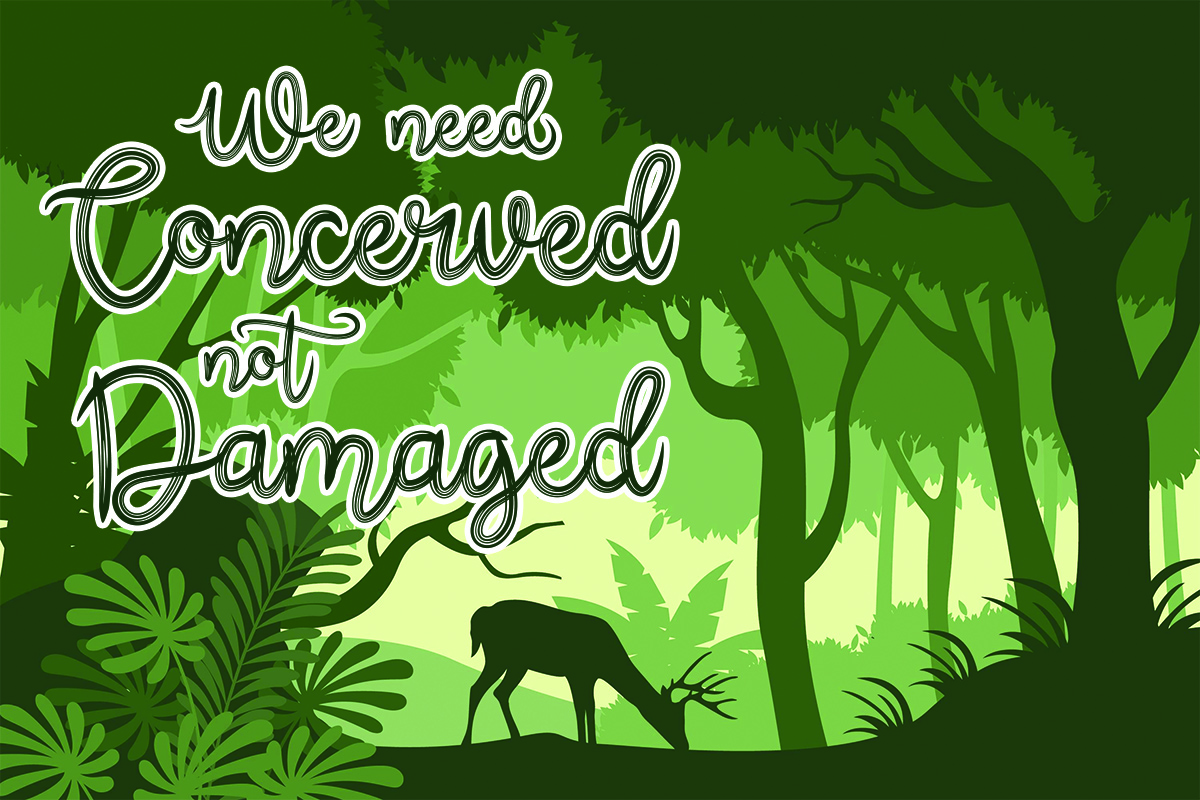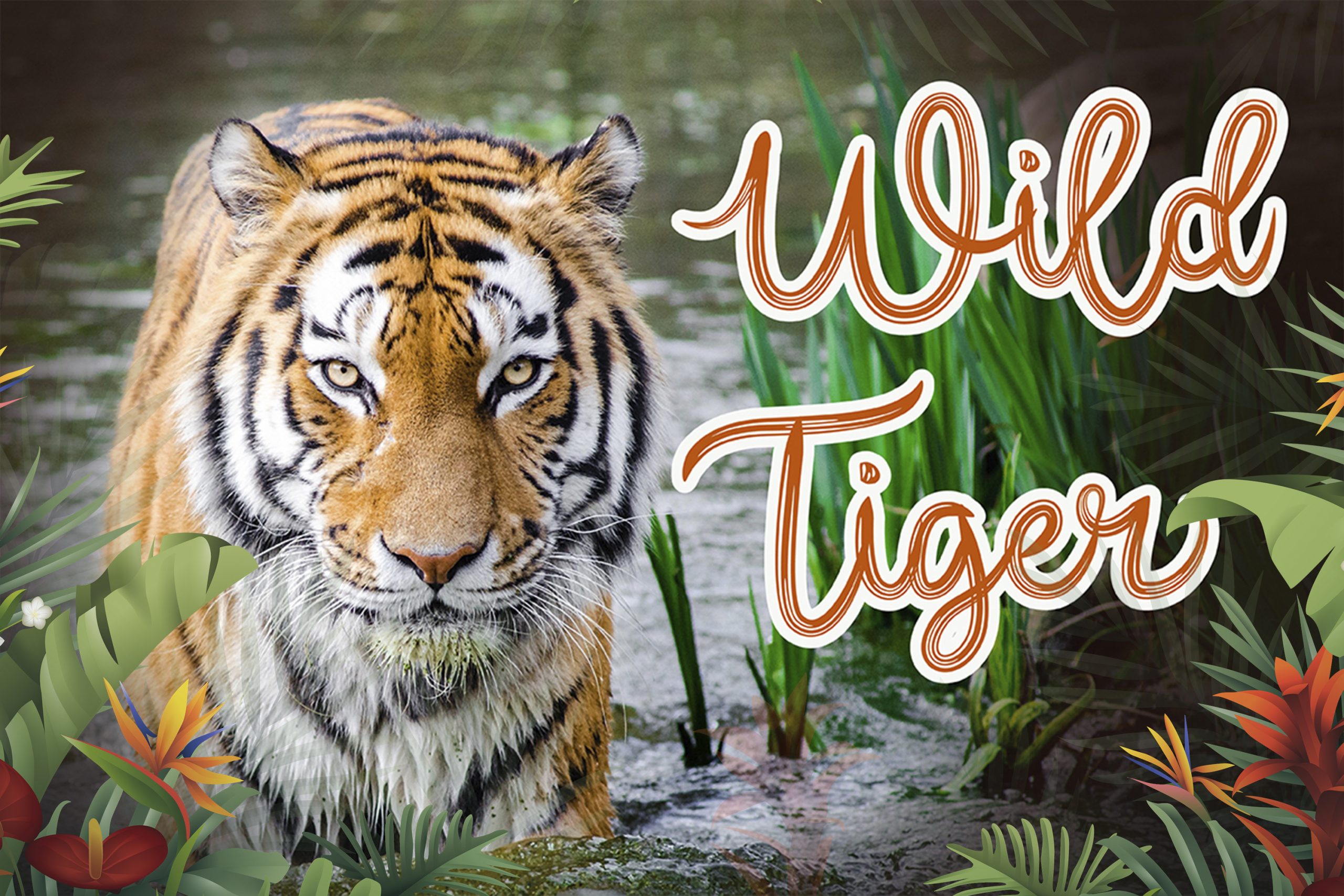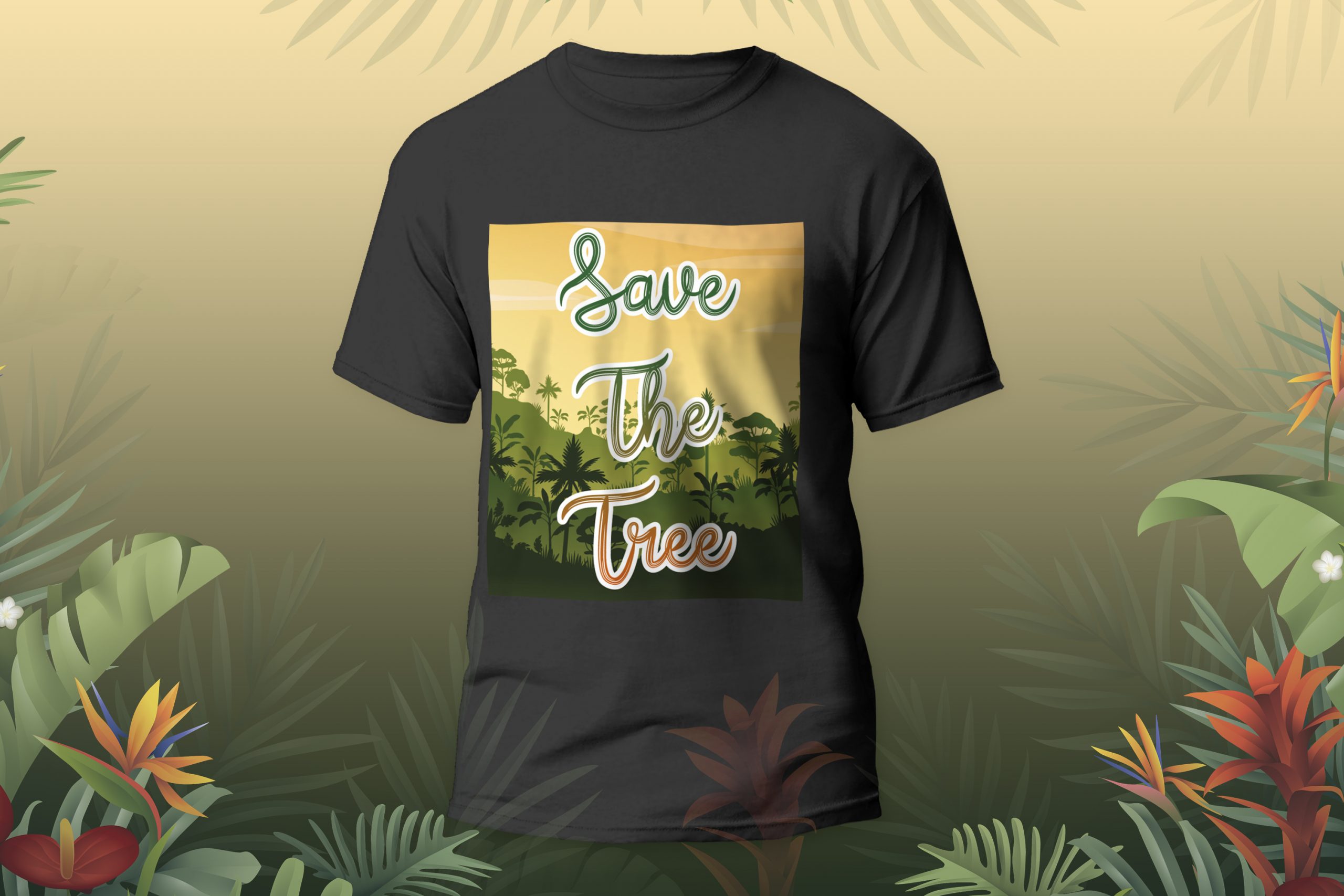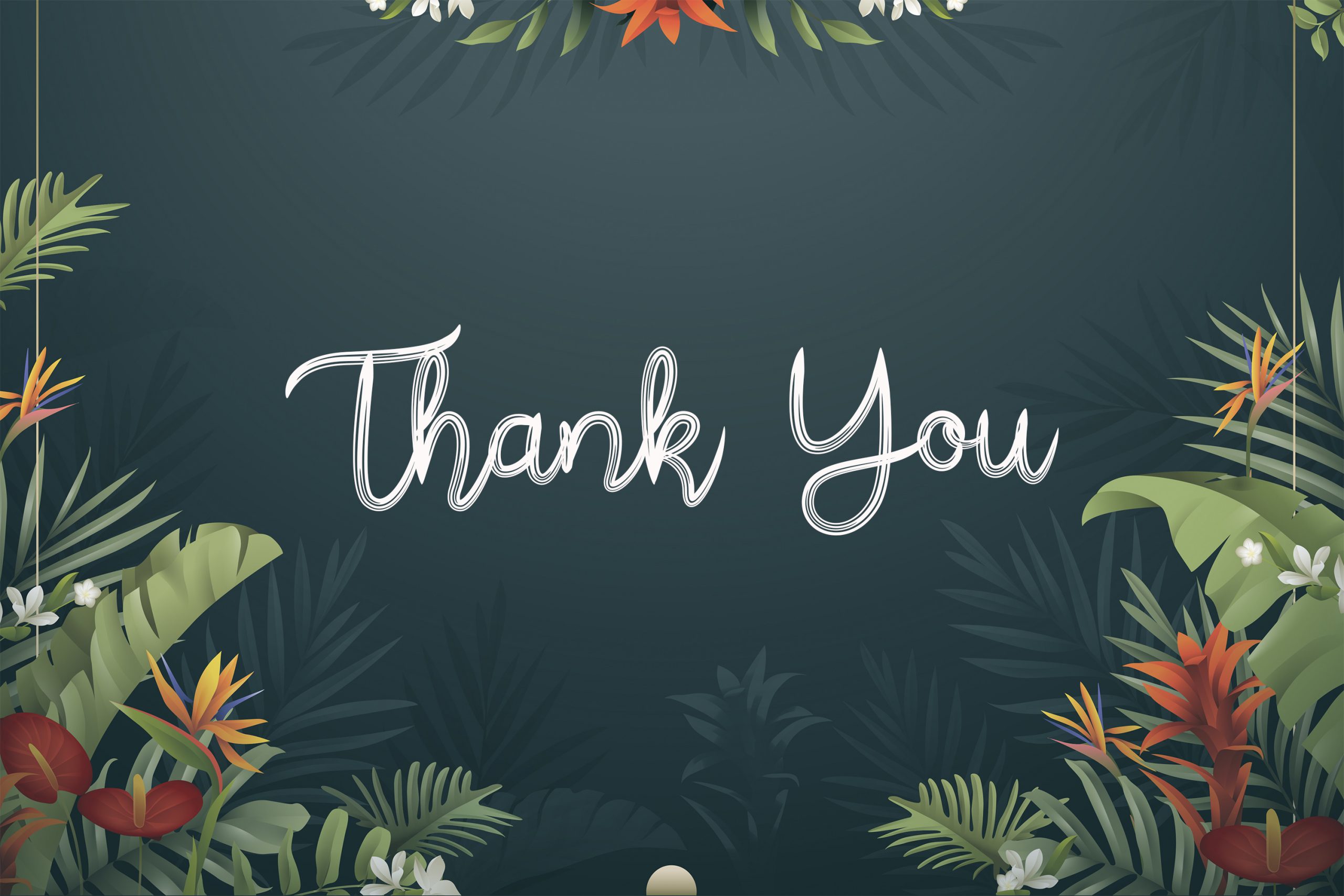
The Jungle Font
The Jungle Script Font
This is a unique handwritten font, that features a very refined and classy look. This font is perfect for designing t-shirts, brochures, magazines, book covers and more.